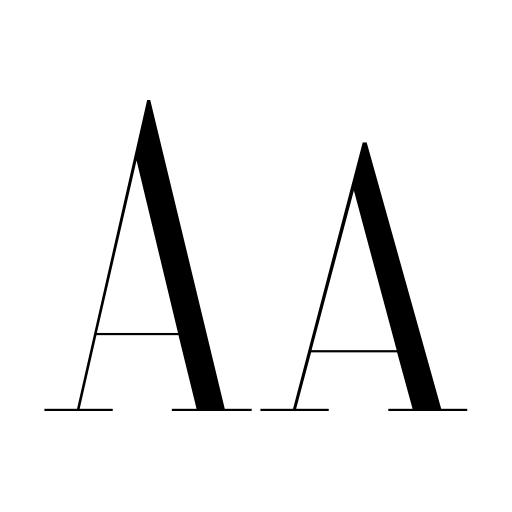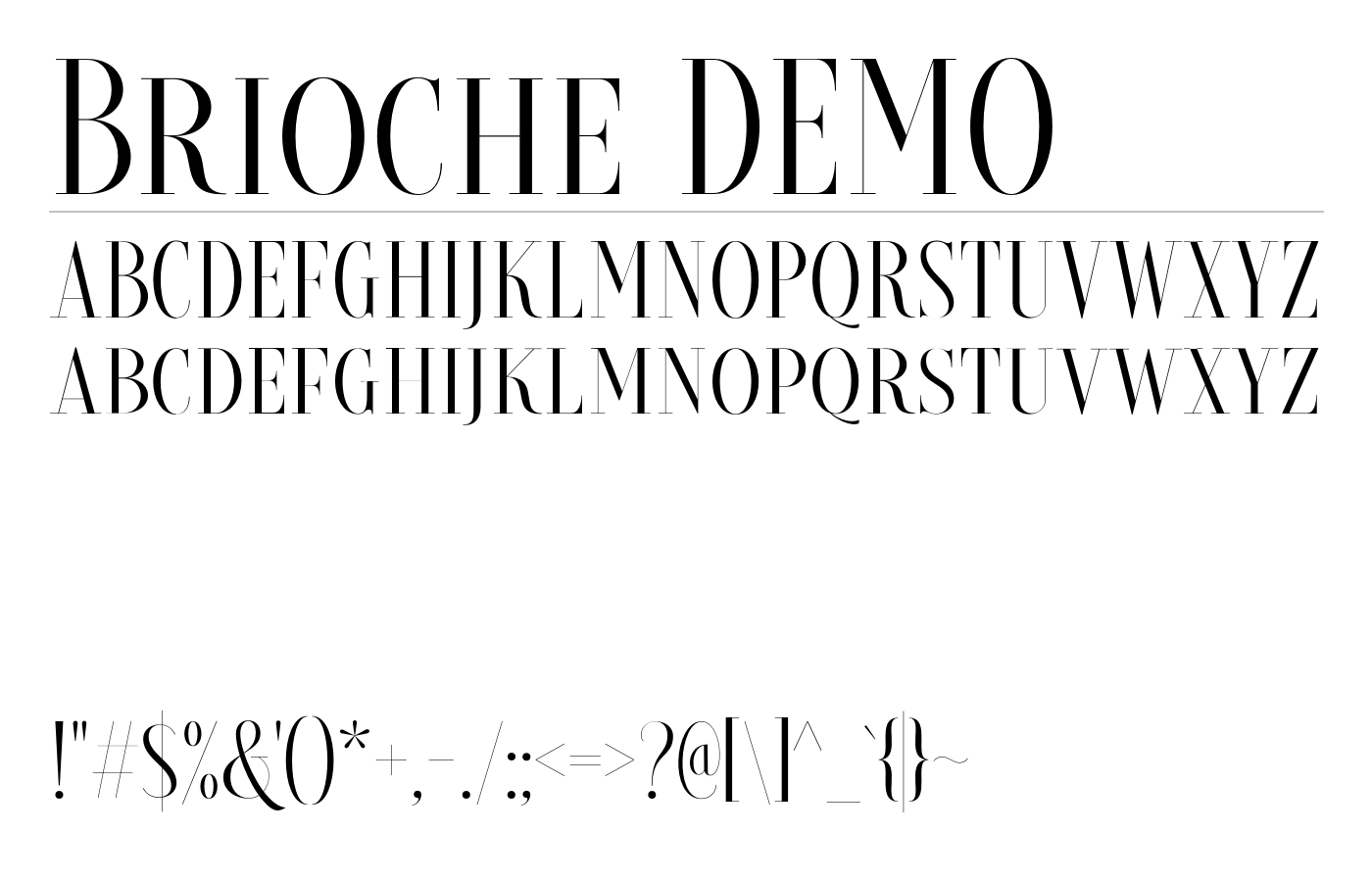
Brioche DEMO is a tall, elegant serif font with a high contrast between thick and thin strokes, giving it a refined, luxurious feel. Its slender letterforms and sharp serifs make it ideal for sophisticated branding, fashion headlines, and upscale editorial design where a modern yet classic touch is desired. This font works beautifully in large sizes to highlight its graceful details and stylish personality.
About Brioche DEMO Font